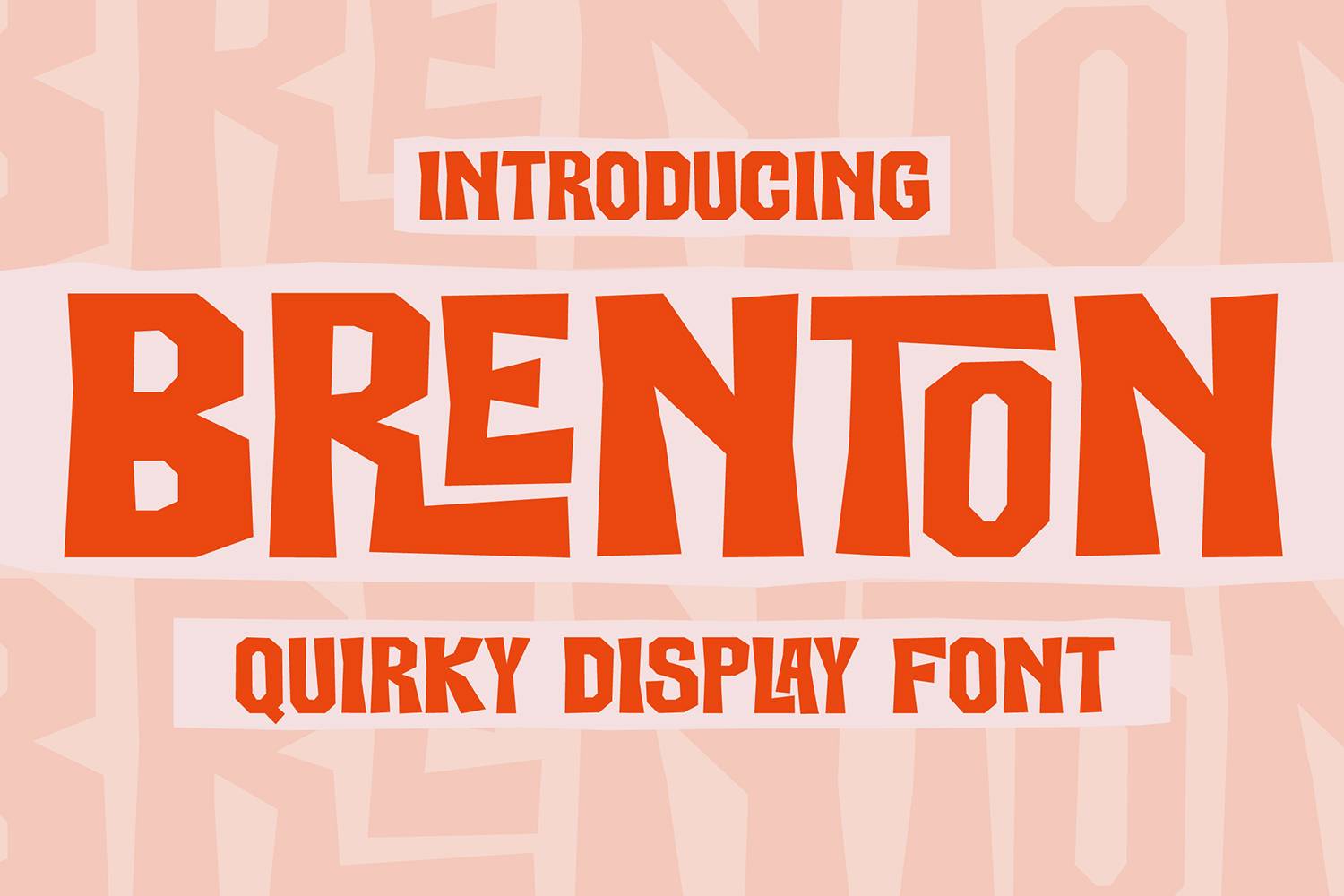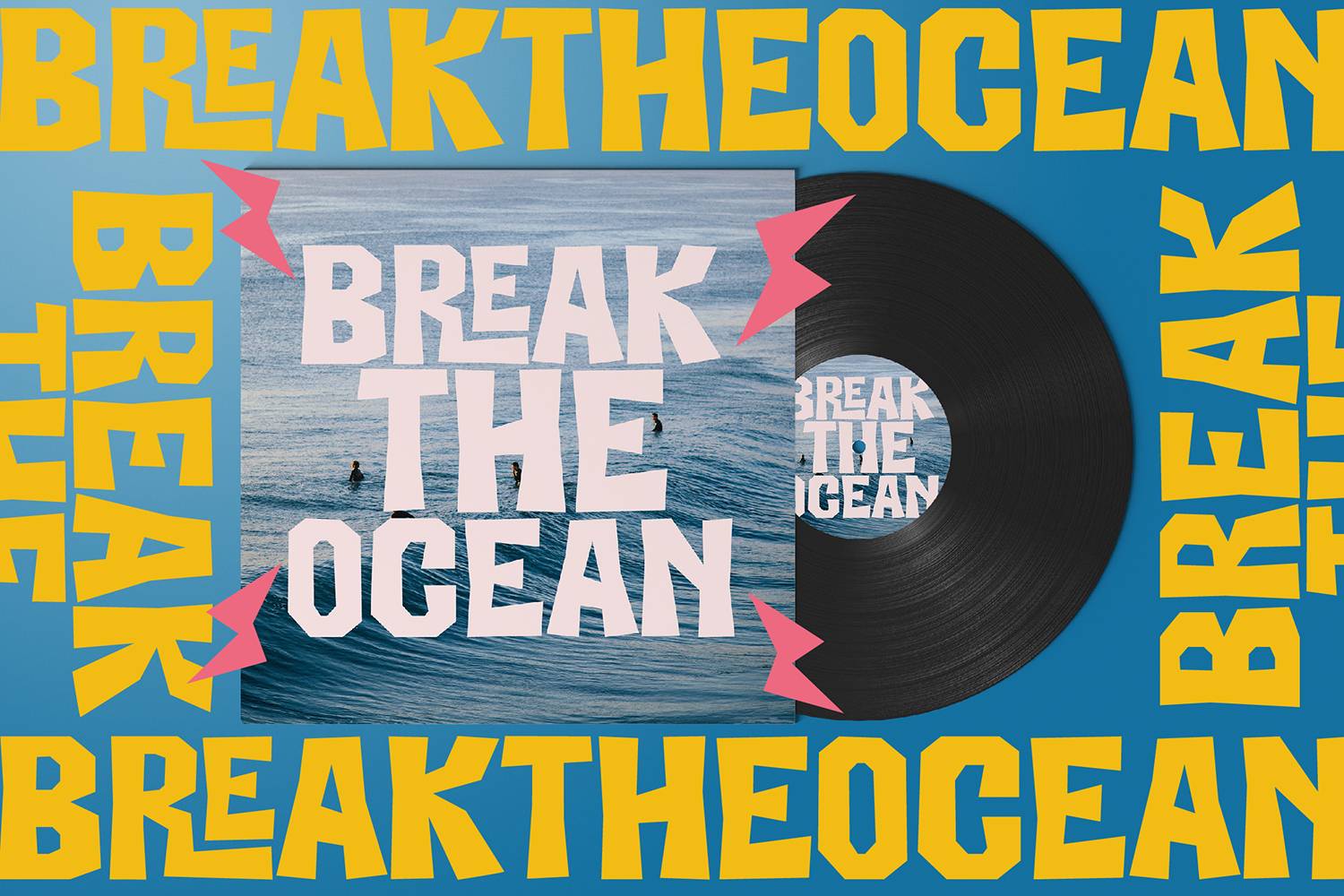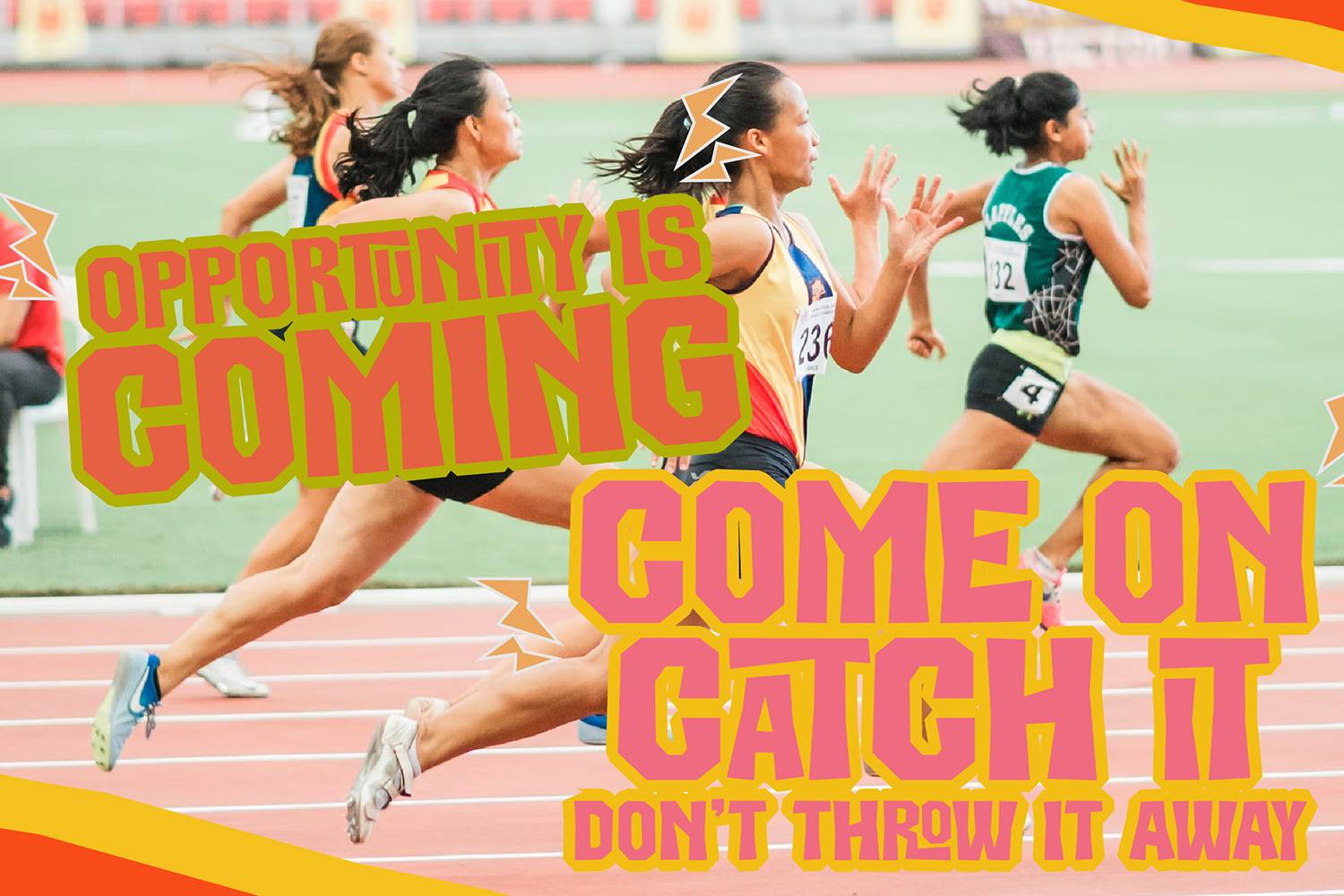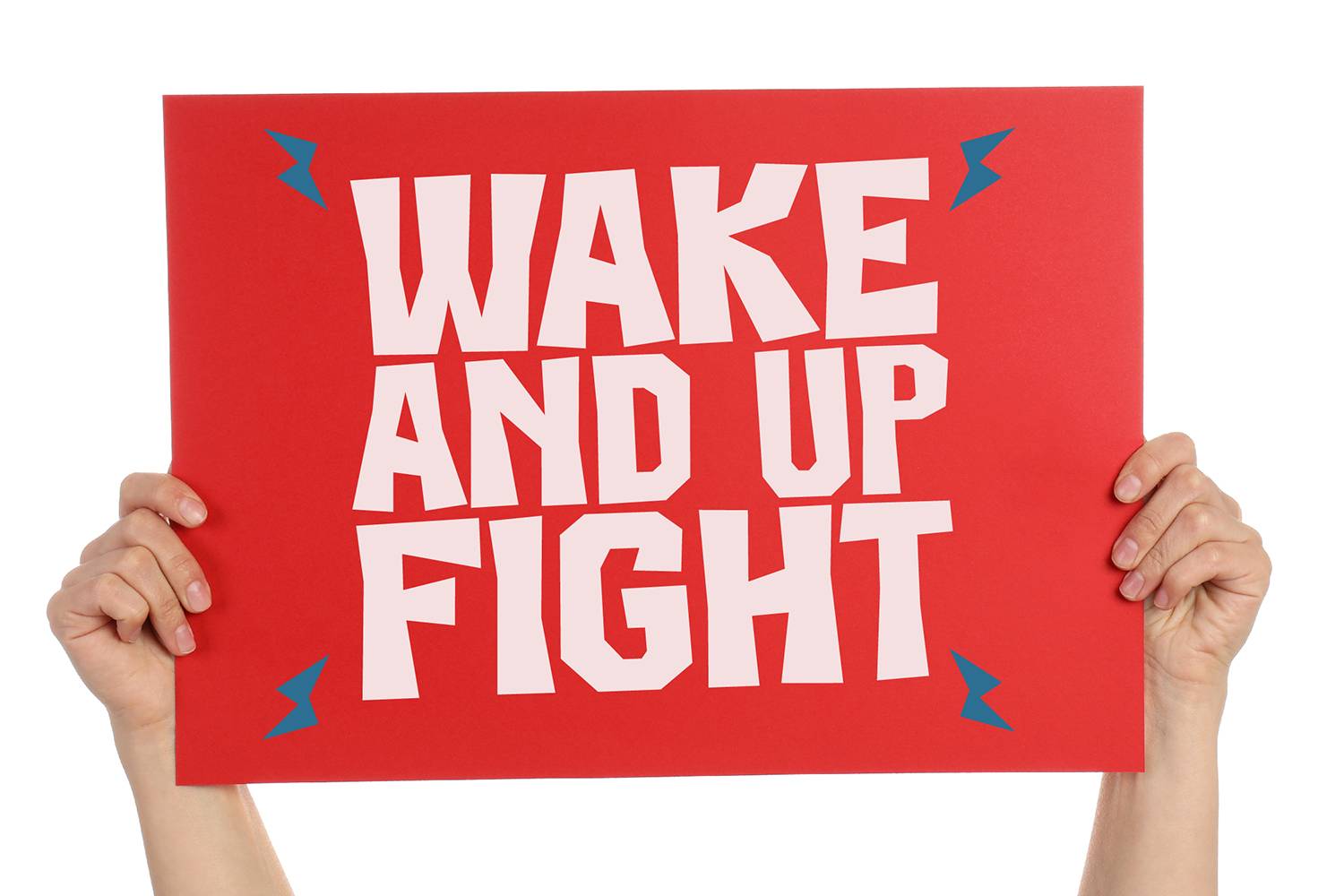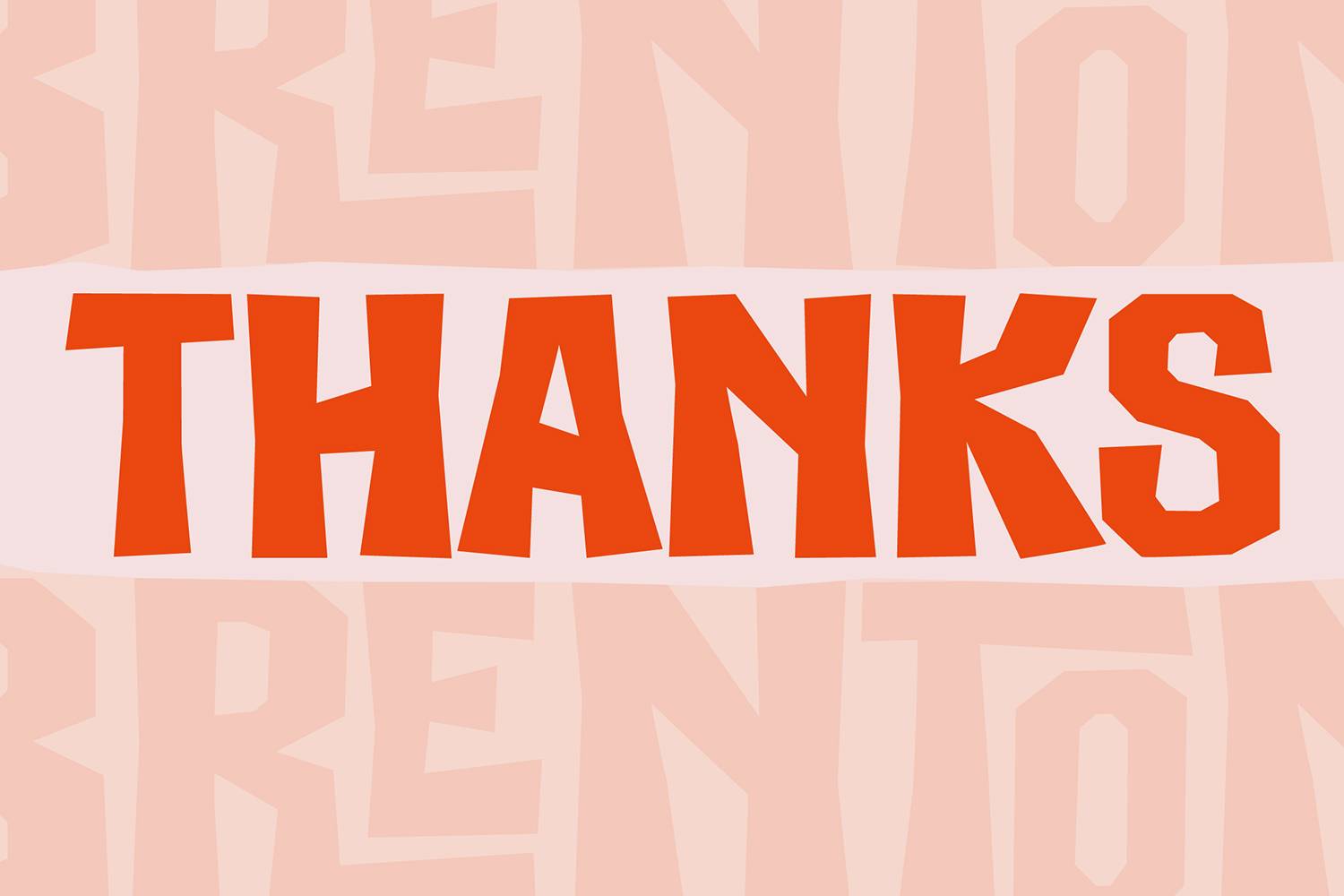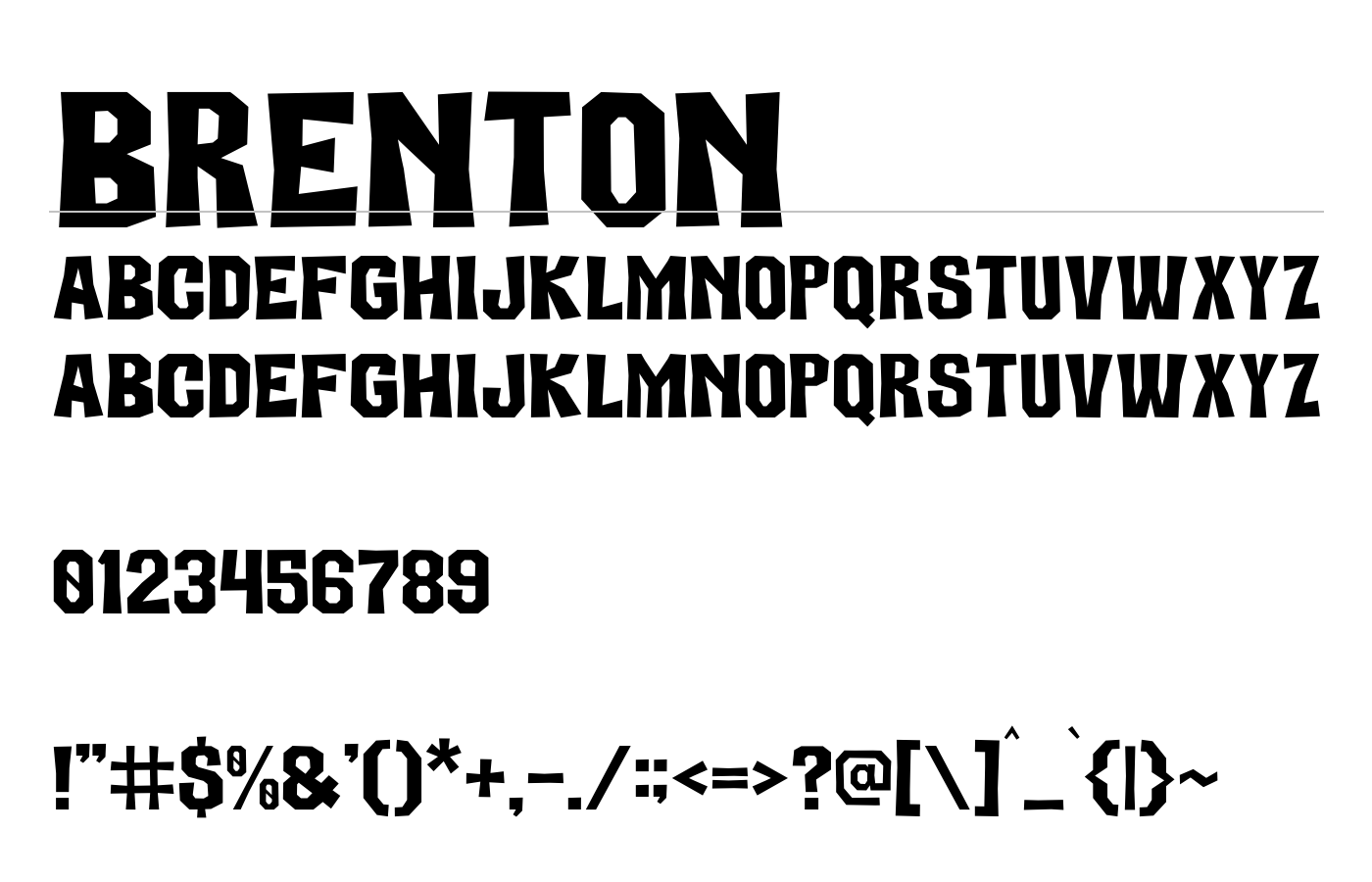
Brenton is a bold, condensed sans serif font with a rugged, geometric style characterized by sharp, angular edges and a slightly uneven structure that gives it a playful yet strong personality. Its all-caps design and distinctive letterforms make it ideal for attention-grabbing headlines, posters, and branding that aims to convey a sense of energy and boldness. This font works well in creative, modern contexts where a unique, impactful display typeface is needed.
Brenton Font
About Brenton Font